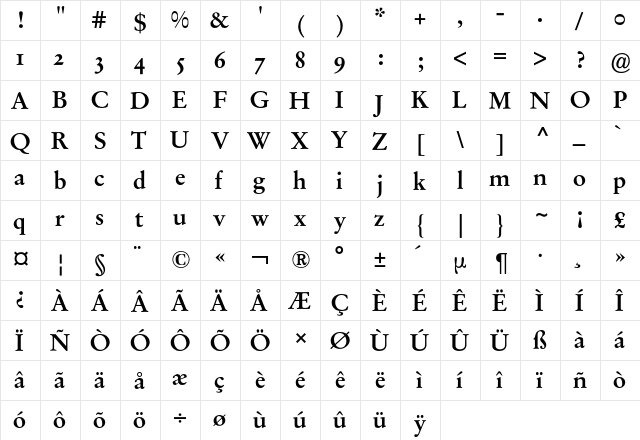
Garamond Stempel Expert BQ Regular
Design Context for Garamond Stempel Expert BQ Typeface
Garamond Stempel Expert BQ offers clean, dependable letterforms without strong stylistic allegiance, making it a practical choice for designers who need flexibility.